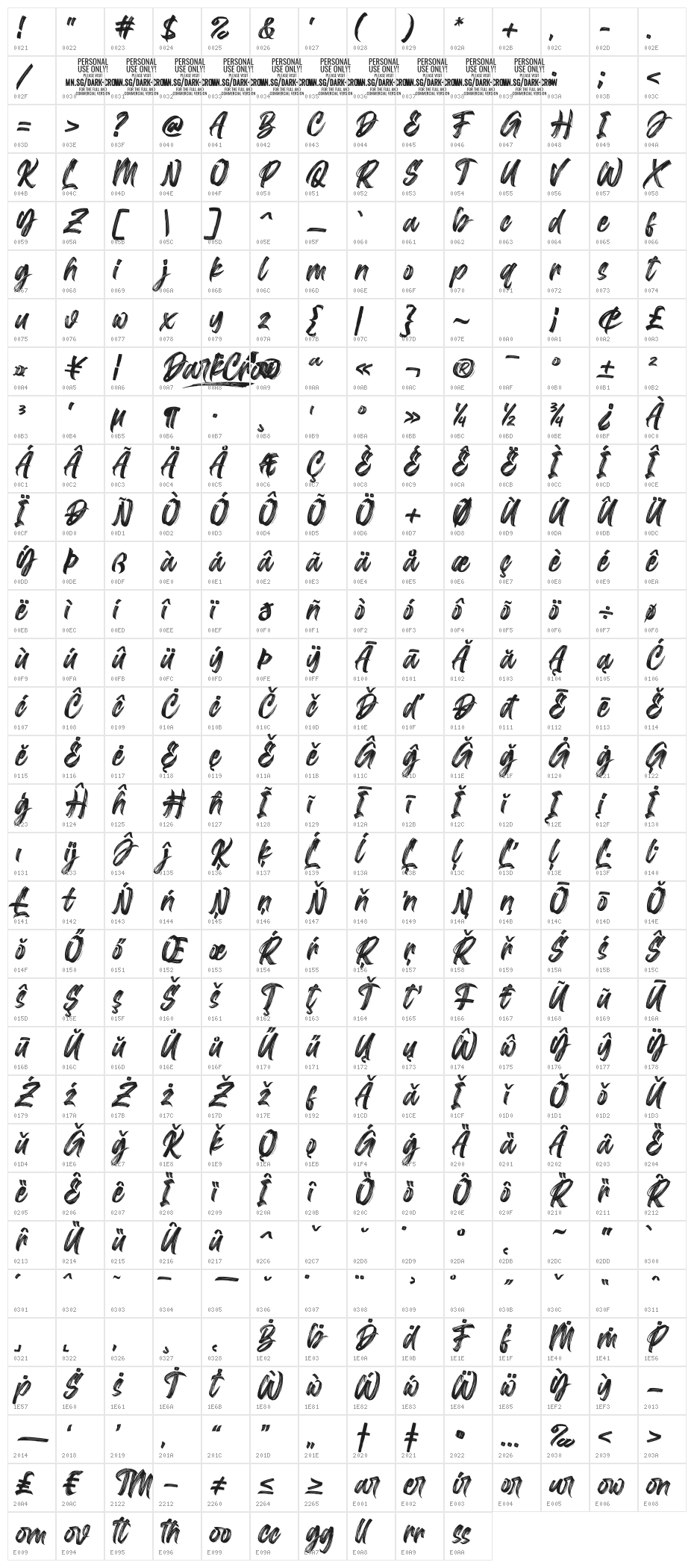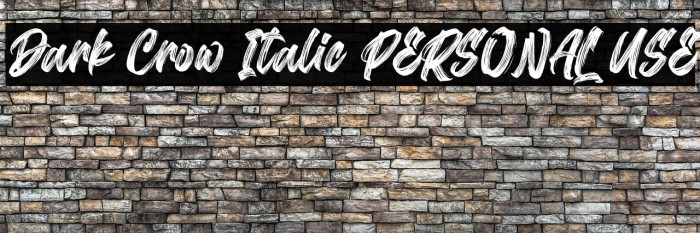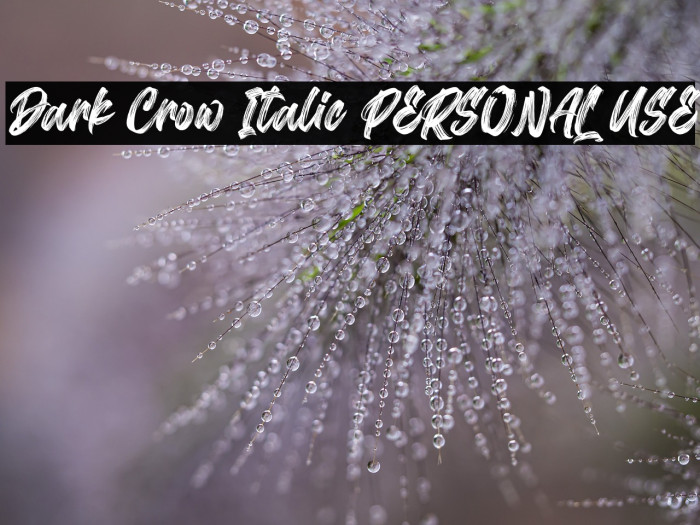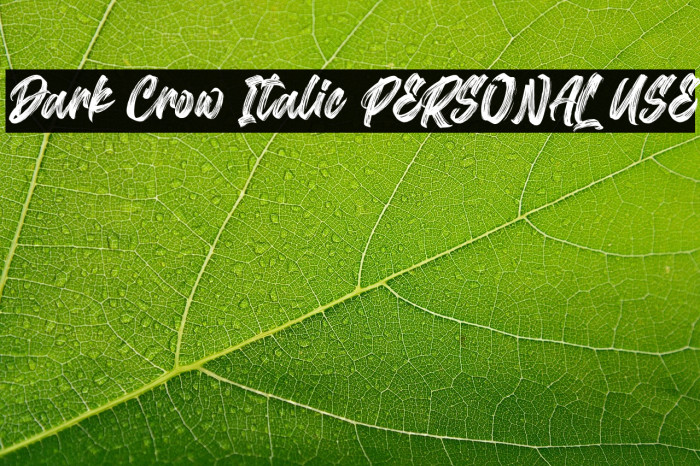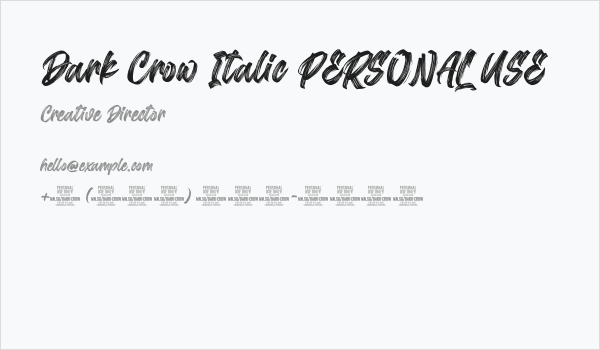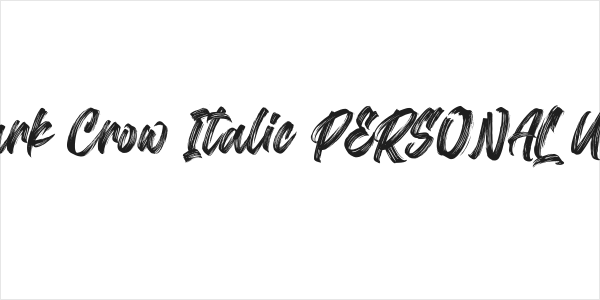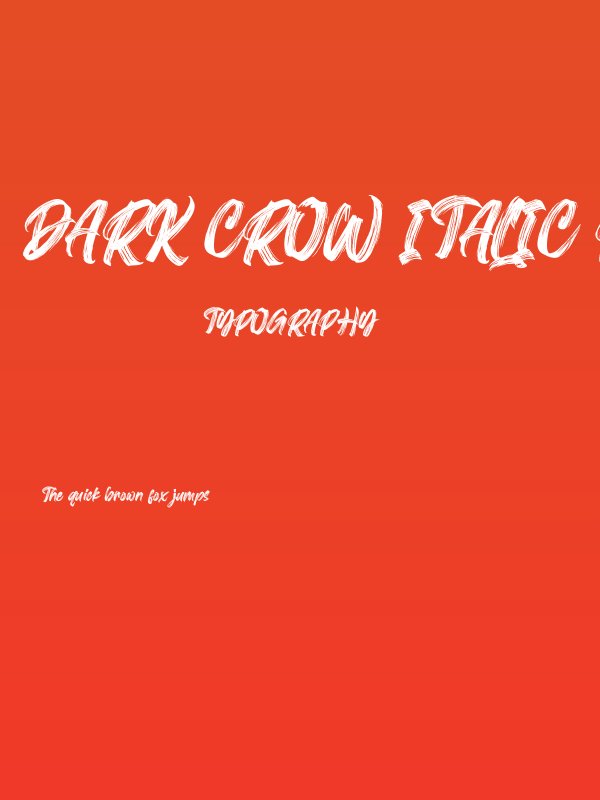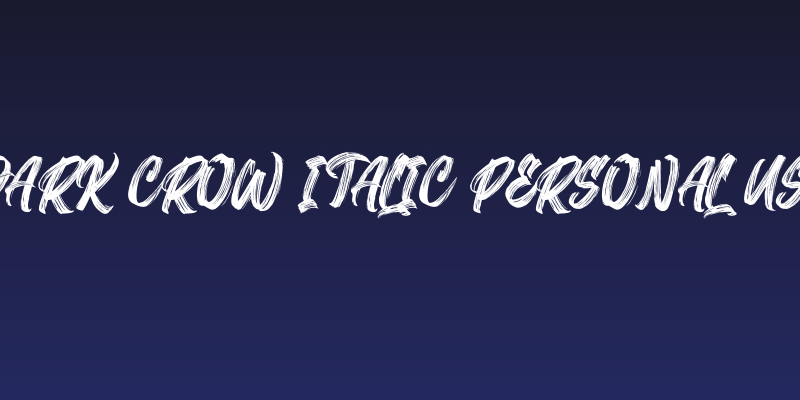
Dark Crow Italic PERSONAL USE Font
Dark Crow Italic PERSONAL USE Description
This font features a bold, expressive style with a hand-painted appearance. The strokes are dynamic and fluid, giving each character a sense of movement and energy. The letters are slightly slanted, enhancing the italicized effect and adding to the overall dramatic flair. The texture of the strokes resembles brushwork, with visible variations in thickness that contribute to a lively and artistic feel. The uppercase and lowercase letters maintain a consistent style, while the numbers and special characters integrate seamlessly with the alphabet, ensuring versatility in design applications.